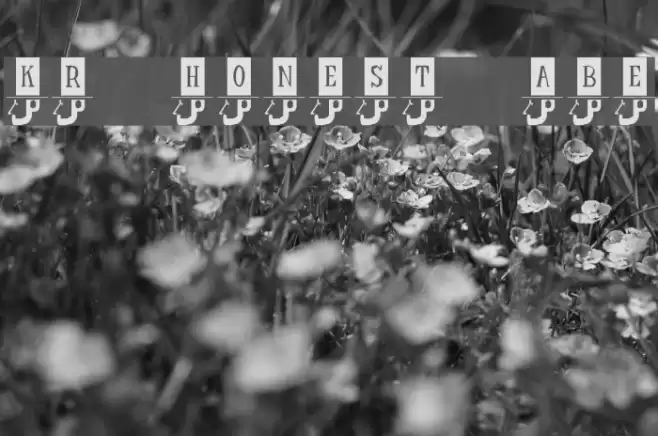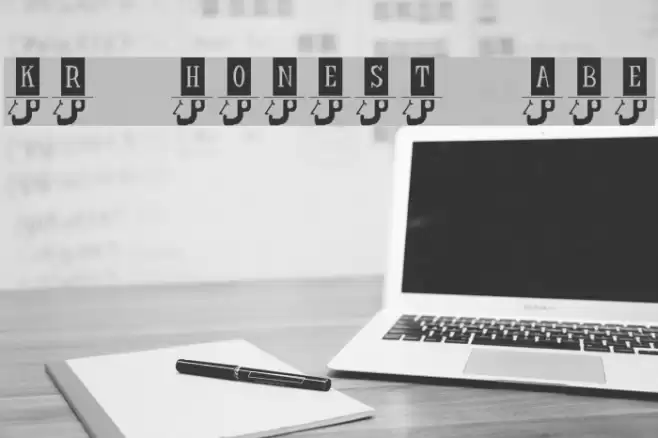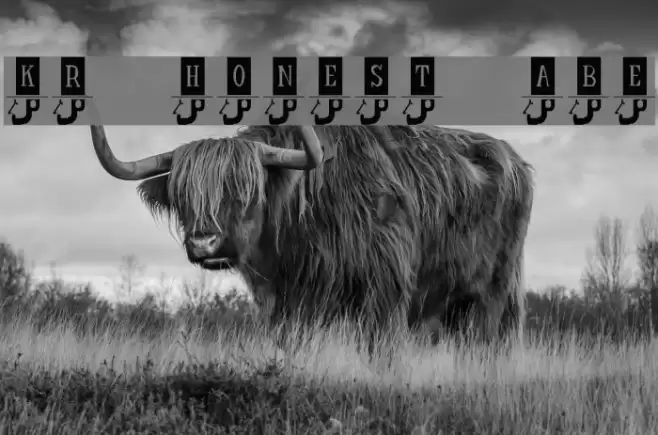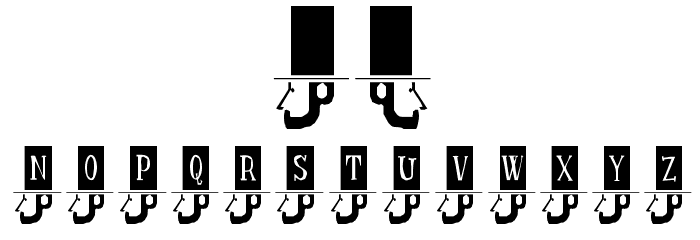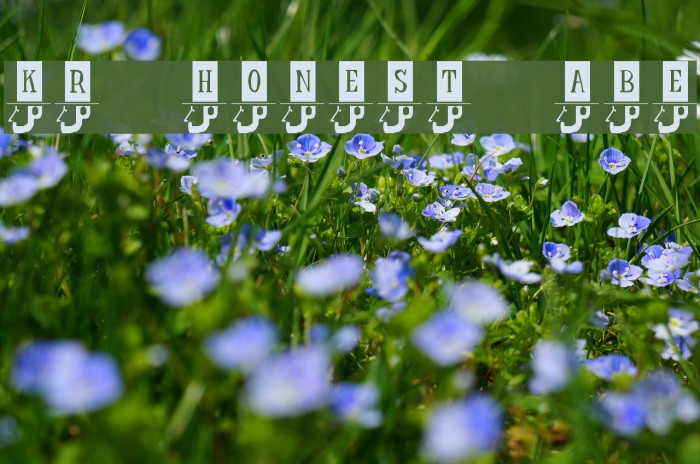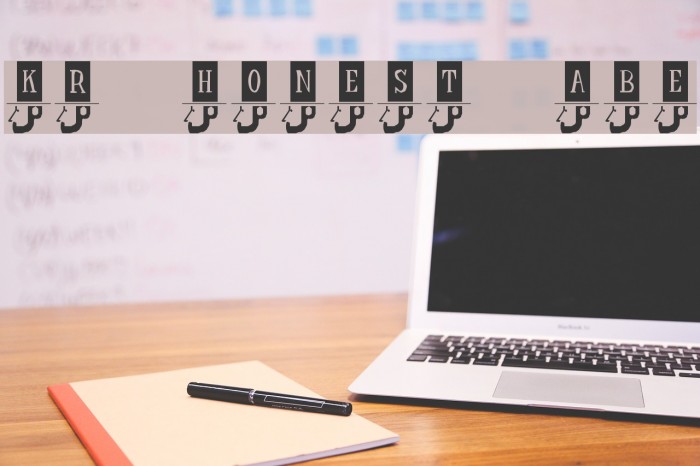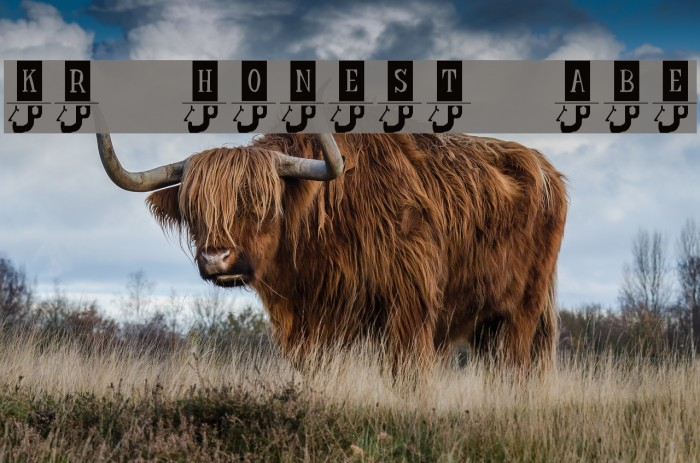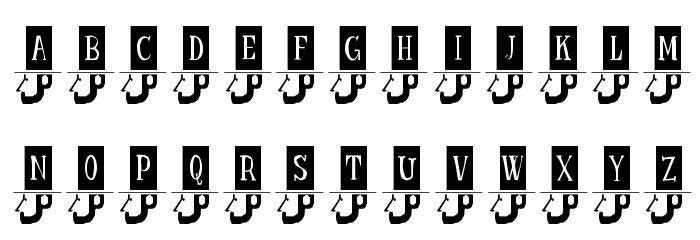
KR Honest Abe Font
KR Honest Abe Description
This font features a bold and striking design with a distinct Western flair. Each character is enclosed within a rectangular frame, reminiscent of old-fashioned wanted posters. The letters are uppercase and have a strong, blocky appearance, with a high contrast between the thick vertical lines and thinner horizontal strokes. The overall style is decorative and evokes a sense of nostalgia, making it ideal for projects that require a vintage or rustic touch. The unique framing of each letter adds an extra layer of visual interest, making it stand out in any design.
A bold, Western-style font with framed uppercase letters from Uncategorized fonts.
- Proposed Projects: Ideal for vintage-themed posters, Western-style branding, or rustic event invitations.
- Overall Style: Vintage